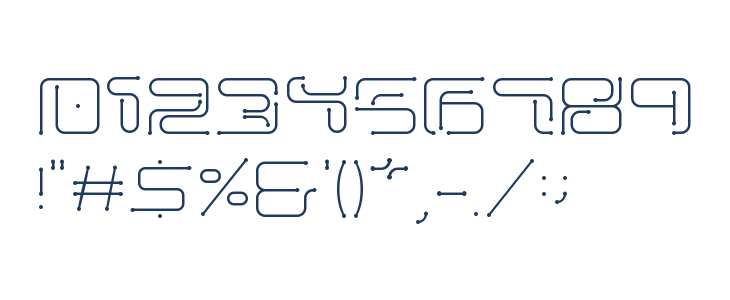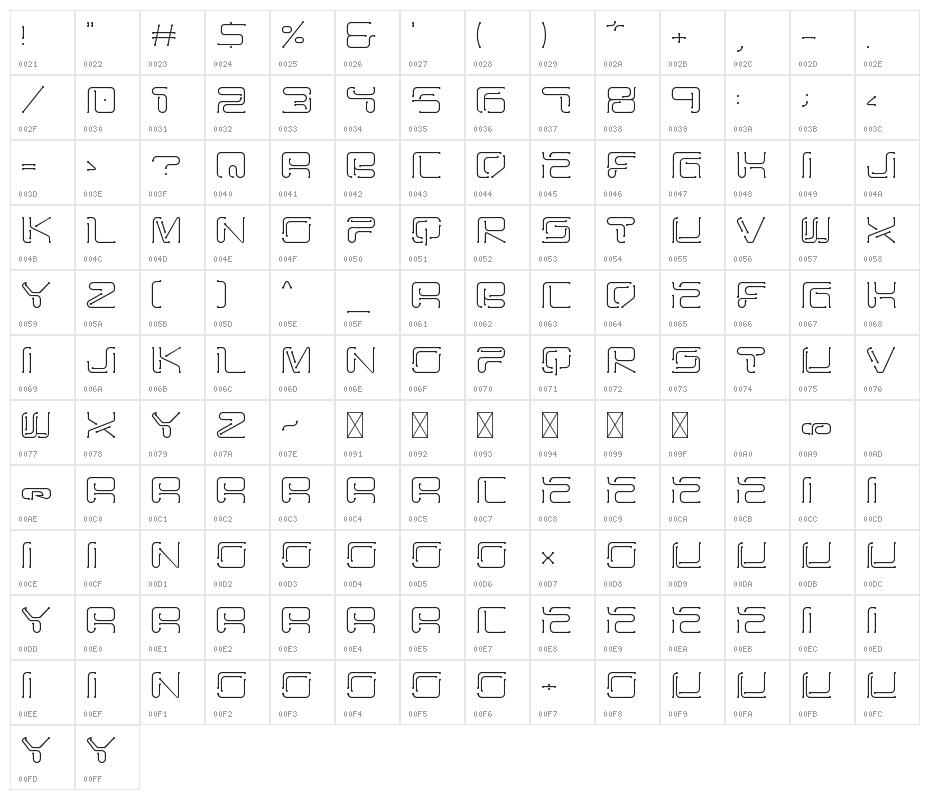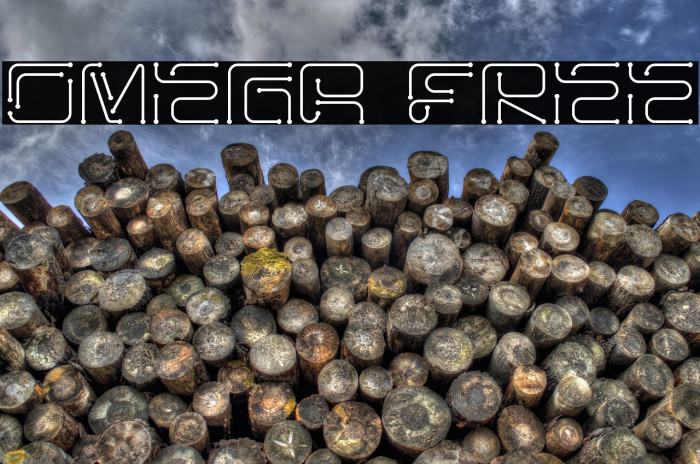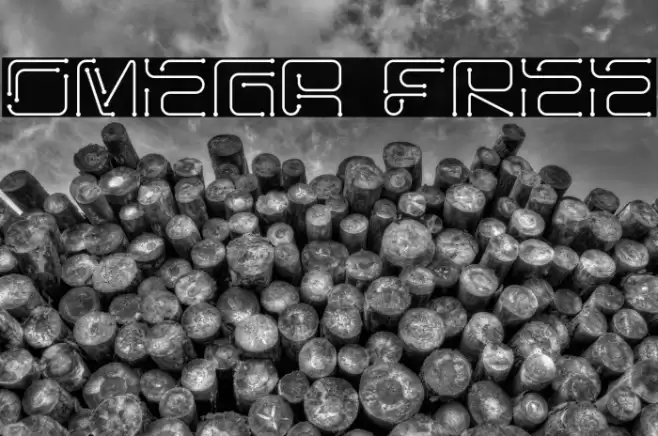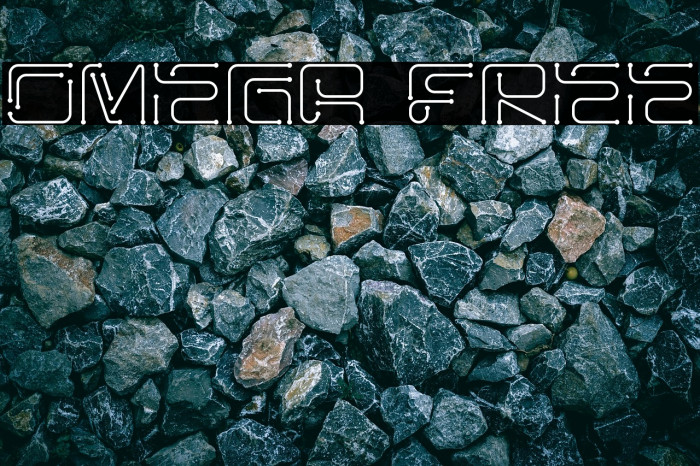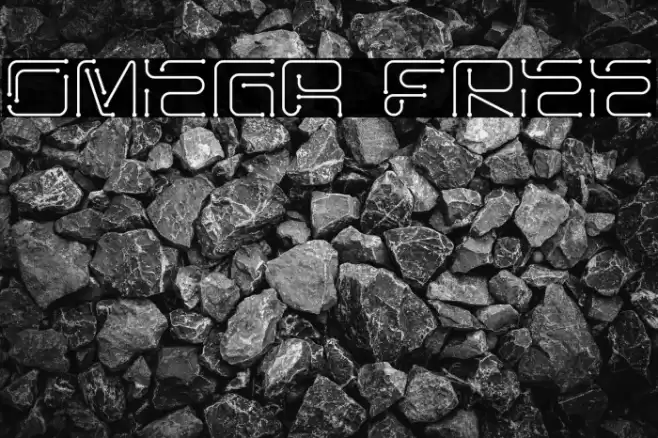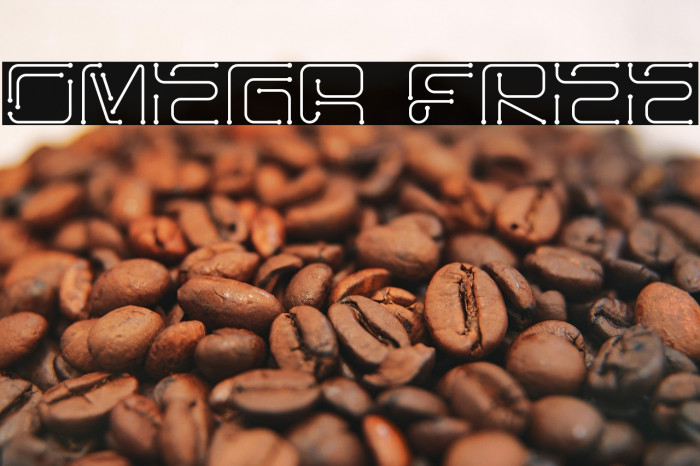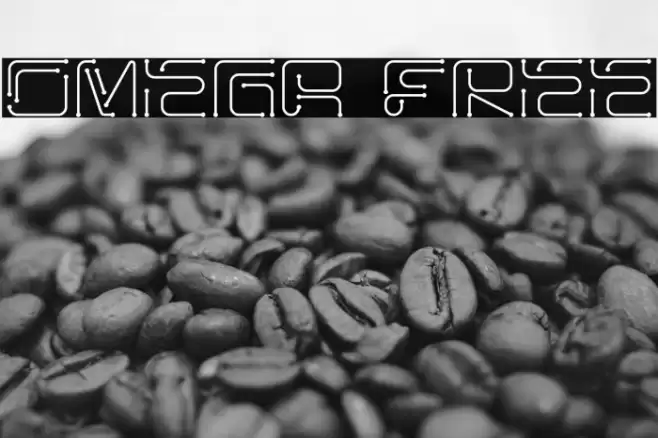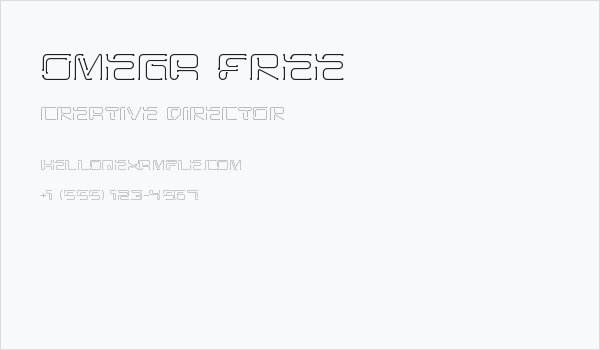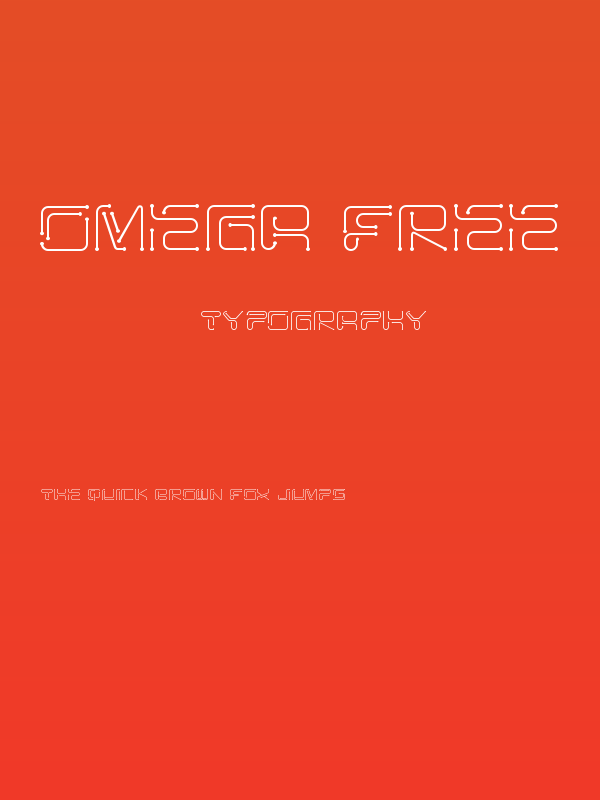
OMEGA FREE Font
OMEGA FREE Description
This font features a futuristic and digital-inspired design, characterized by its unique use of lines and dots to form each character. The letters and numbers are constructed with a series of connected segments, giving it a circuit-like appearance. This design choice creates a sense of modernity and technological advancement. The font maintains a consistent stroke width throughout, contributing to a uniform and cohesive look. Its geometric structure and minimalistic style make it suitable for projects that require a contemporary and innovative aesthetic.
| Use Case | Logos, Headlines, Digital displays |
| Proposed Projects | Ideal for tech branding, digital interfaces, sci-fi themed designs, and modern advertising. |